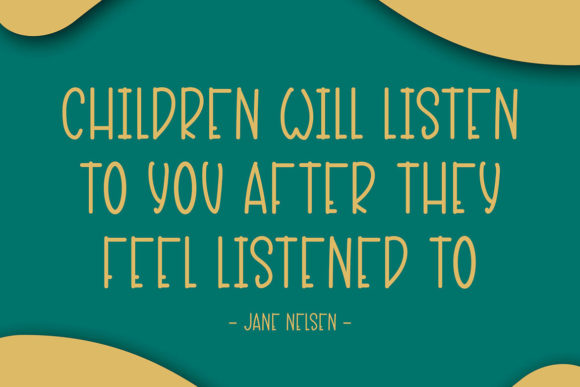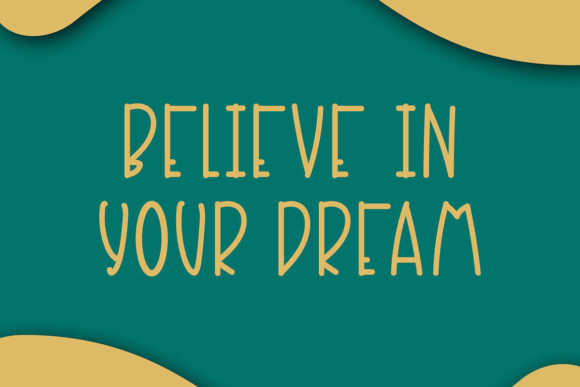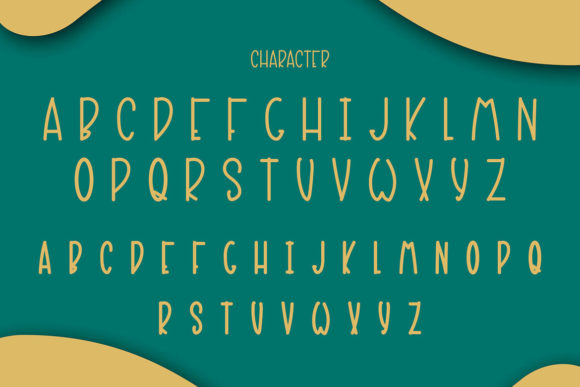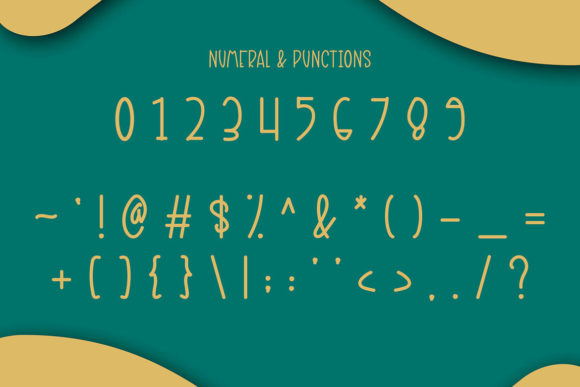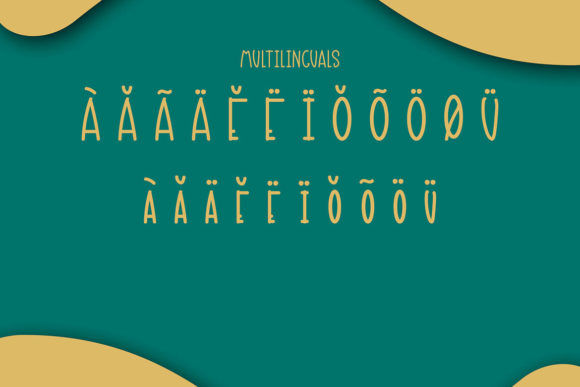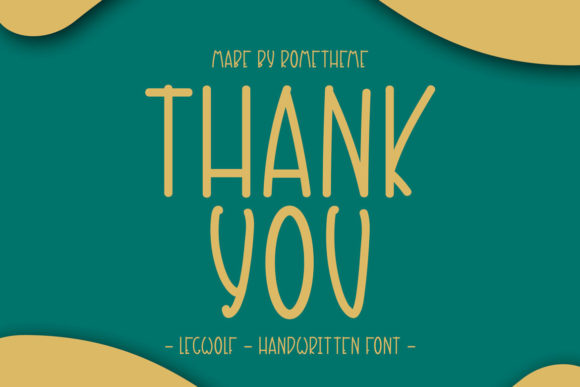
Introduction to Legwolf Font
Legwoft is a beautiful display font that will look amazing on any kind of product.
It is great for fashion, apparel projects, signature, album covers, logos, branding, magazines, social media posts, advertisement pamphlets, and many more Fall in love with its incredibly versatile style, and use it to create beautiful designs.
Key Features of Legwolf Font